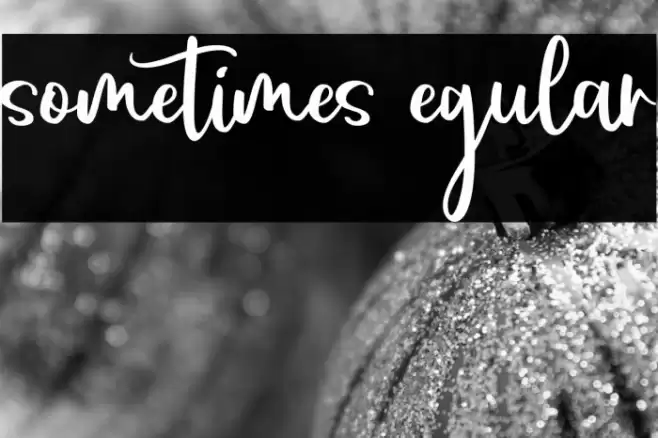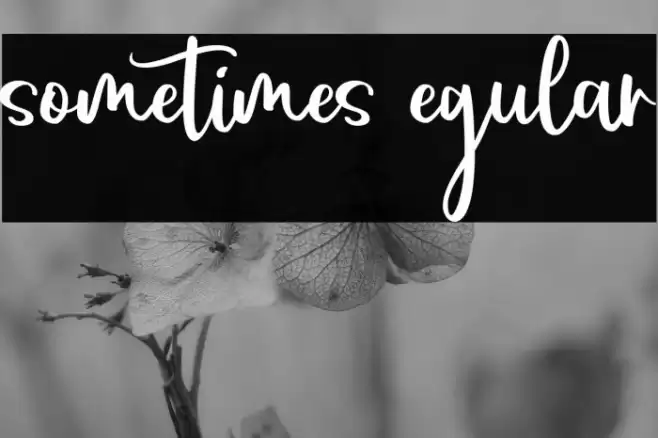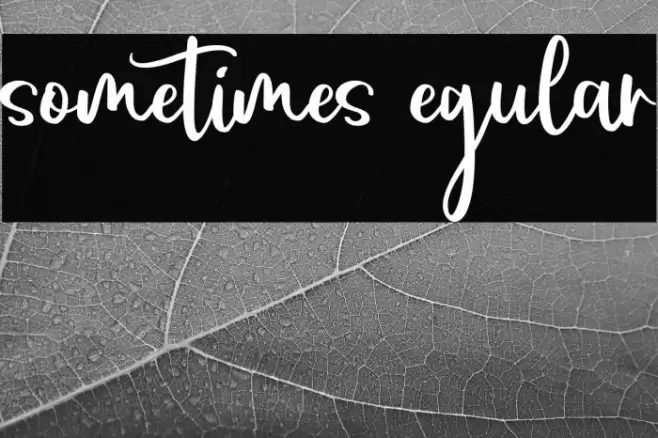
sometimes Regular Font
sometimes Regular Description
This font features a playful and flowing handwritten style, characterized by its smooth, cursive letterforms. The strokes are bold and consistent, with a slight slant that adds a dynamic feel. The letters are closely spaced, creating a cohesive and connected look. The font exudes a casual and friendly vibe, making it suitable for creative and informal designs. Its unique style is perfect for adding a personal touch to any project, with each character exhibiting a distinct flair.
A playful, flowing handwritten font with bold, cursive letterforms from Regular fonts.
- Proposed Projects: Ideal for greeting cards, invitations, personal branding, and creative social media graphics.
- Character Spacing: Tight
- Overall Style: Casual
- Use Case: Logos, Invitations, Social Media Graphics